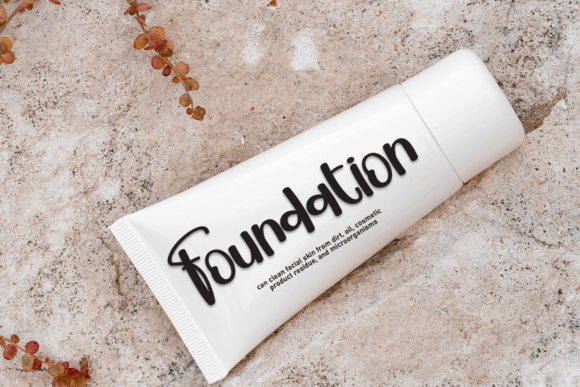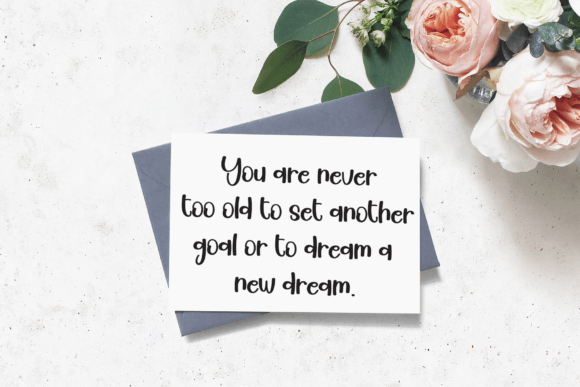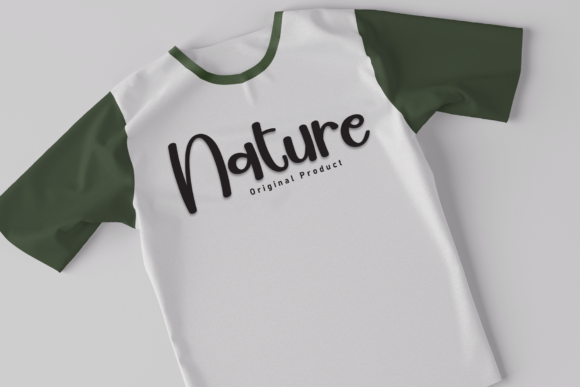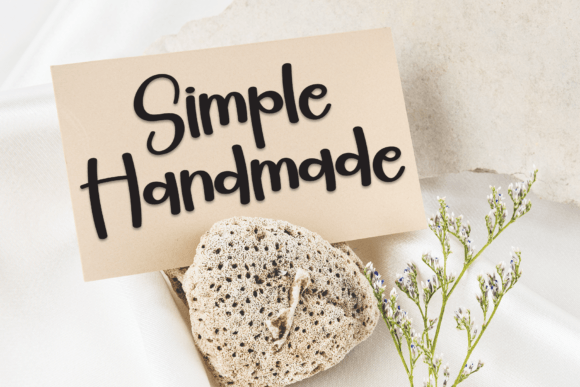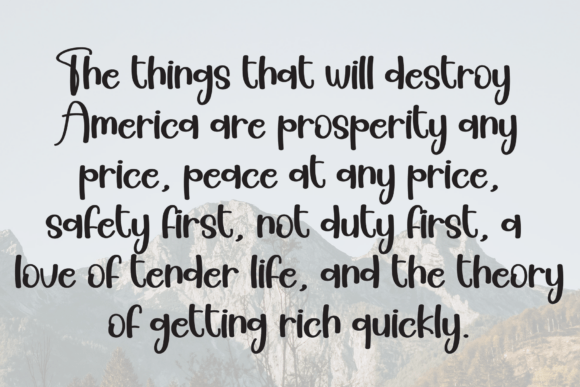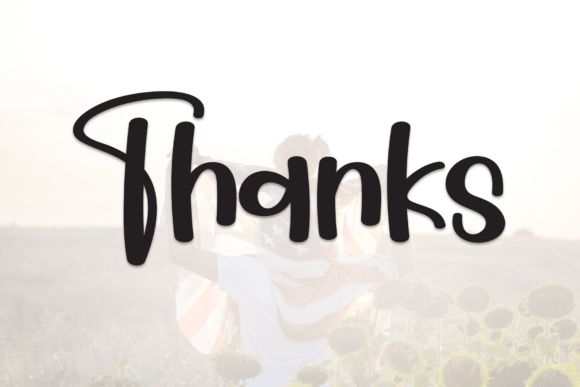
Introduction to Happy Country Font
Introducing the charming charm of our handcrafted display font, steeped in sweetness and friendly allure.
Resplendent with cute delight and fun aplomb, this font becomes the perfect accomplice for crafting wedding invitations, expressive cards, or any design yearning for an infusion of fun-filled touch .
Key Features of Happy Country Font
Why Choose Happy Country Font?
Happy Country Font offers exceptional quality and versatility, making it a valuable addition to your design toolkit. Whether you’re creating for personal projects or commercial use, Happy Country Font delivers professional results.